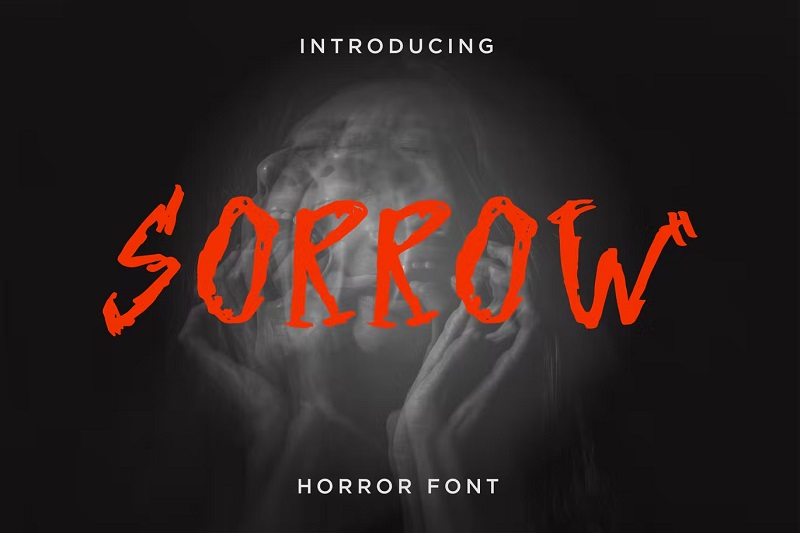
The best fonts evoke emotion—and these hair-raising horror fonts are guaranteed to send a shiver down your spine.
What are Horror Fonts?
Horror fonts are fonts that incorporate elements of the horror genre. They’re deliberately designed to evoke fear and make you think of ghosts, ghoulies, and things that creep around in the dark.
Horror fonts can be any font classification: serif, sans serifs, experimental, script, blackletter… Anything goes—as long as it’s scary!
We also made the decision to include less-scary fonts on this list that still have a horror theme, such as kid’s Halloween fonts.
The 31 Best Horror Fonts (Free & Paid)
1. Horror Joys – Our Top Pick
#1 best horror font
Horror Joys is a bone-chilling typeface inspired by horror movies. The rough hand-drawn letterforms have all the characteristics of a scary font. It comes with all the usual glyphs: uppercase, lowercase, numbers, and punctuation, plus a bonus package.
Why it’s our top pick:
The reason we like Horror Joys is because of how versatile it is. It’s the perfect choice for all your horror-themed designs, from movie posters to death metal album covers and everything in between.
2. Scary Things
Scary Things is a clean and sharp serif font by designer Saridezra. The sharp edges on the glyphs call daggers, Dracula, and other fanged beasts to mind. The thick stroke width and straight lines make this a highly readable font and it’d look great on all kinds of designs, but it’d particularly well-suited to thriller and horror movies and book covers.
3. Sadistic
Sadistic is every bit as terrifying as it sounds. It’s an evil-looking typeface with glyphs designed to look as if they’ve been scratched into the paper over and over again by some maniacal murderer with a sharp object.
4. Escape!
Escape! Is another unique horror font with a cool, retro-inspired style. It’s perfect for death metal art, retro horror movie covers, and other creative design projects. It comes in two versions: regular and Slant. In addition to the font itself, the download also comes with some free bonus PSD illustrations and backgrounds that you can add to your designs.
5. Pandora
Pandora is an eerie, strange typeface with something distinctly dark about it. It’s characterized by odd shapes and an abundance of unnecessary crossbars and lines that hint at the occult. It comes in three versions: Ep.1, Ep.2, and Ep.3. Each subsequent episode gets progressively weirder. It’s an all-caps font that comes with numerals but no other glyphs.
6. Gendarwo
Gendarwo is a scary typeface that looks as if it’s dripping blood—or maybe it’s slime. Either way, it’s definitely spooky. While there’s definitely a horror theme there, this one’s not quite as terrifying as some of the other fonts on this list.
It’s a little cliche and doesn’t take itself too seriously, which makes it a good choice for more casual and fun horror-themed designs, like haunted houses, Halloween party flyers, and scary books for children.
7. Astrobia
Astrobia is a modern, futuristic font with a minimalist style. It’s perfect for Sci-Fi horror book covers and movies as it calls to mind aliens and interdimensional beings. It comes in 6 different styles and 3 weights. You can mix and match styles to create contrast within your designs.
8. Yokai
Yokai is a unique rough brush font that’s available for free. The font name, ‘Yokai’, refers to the supernatural spirits and entities that are common in Japanese folklore. And true to its name, there’s definitely something supernatural and alien about this typeface.
9. Sorrow
Sorrow is another creepy font that’s perfect for horror-themed designs. It’s a chaotic hand-drawn typeface that looks as if it’s been messily scribbled out by some deranged mind.